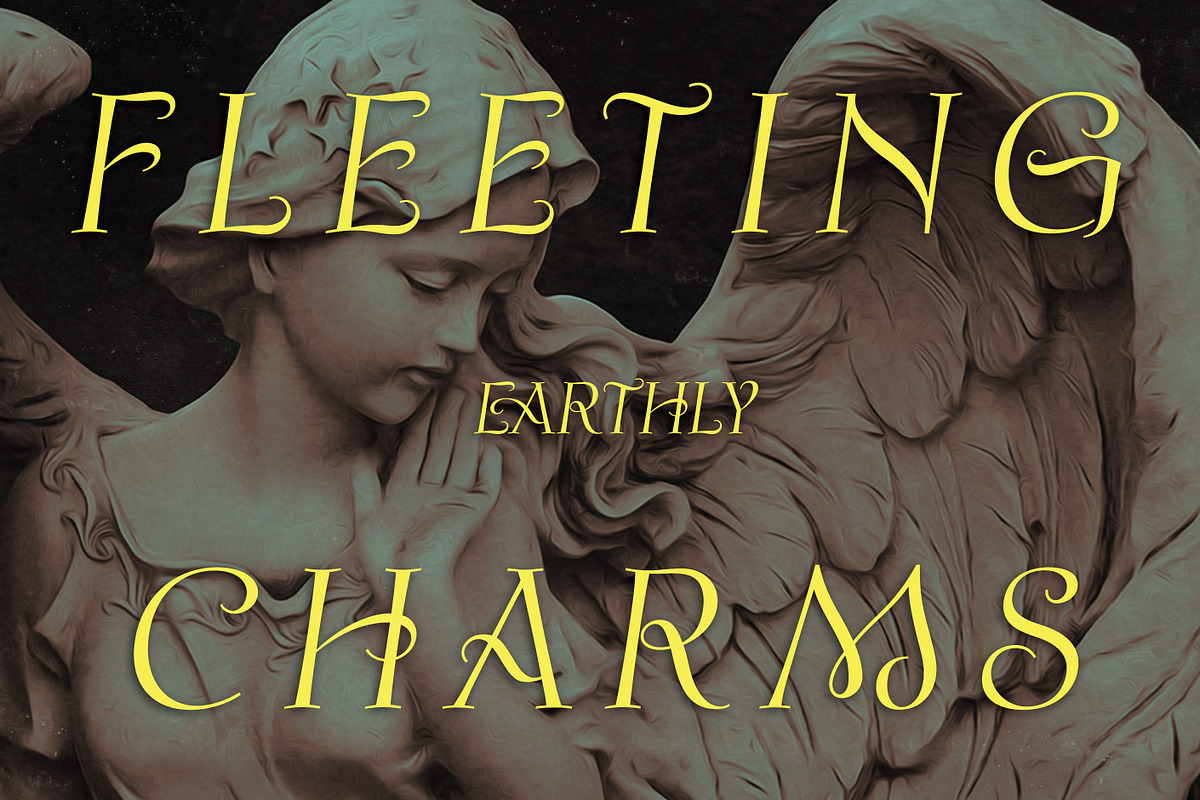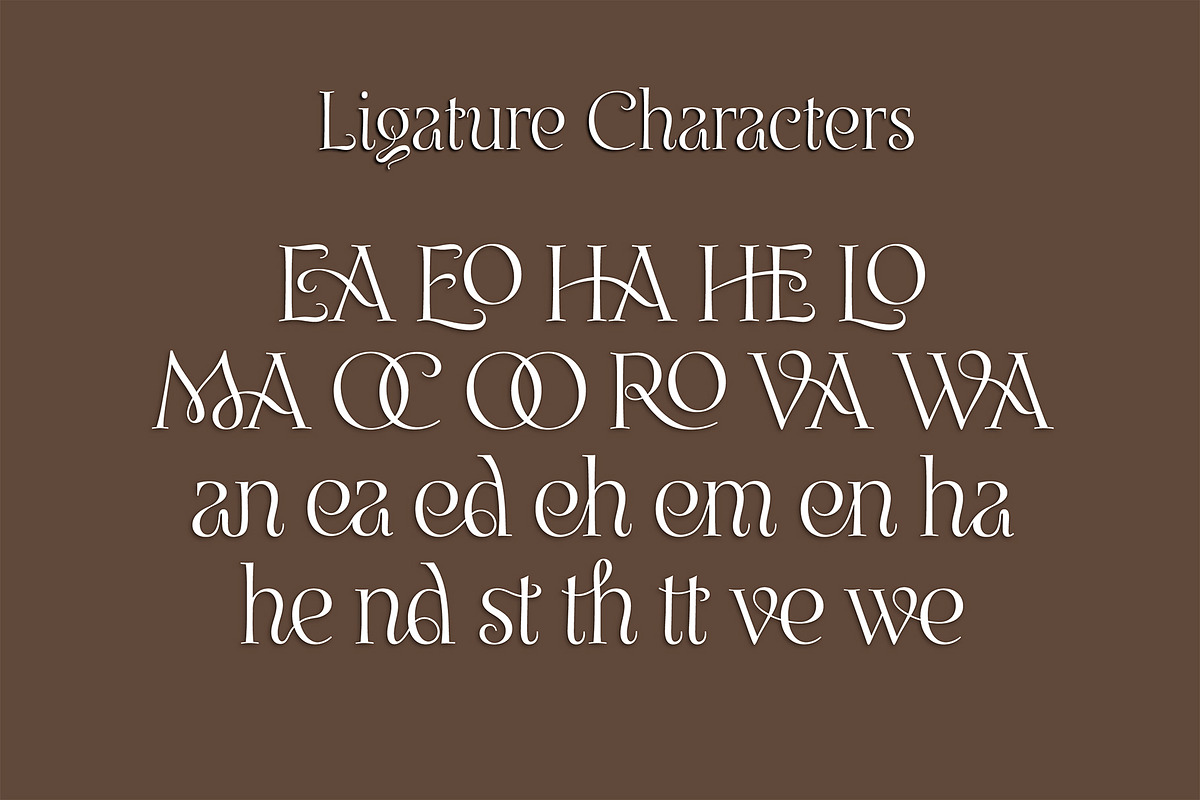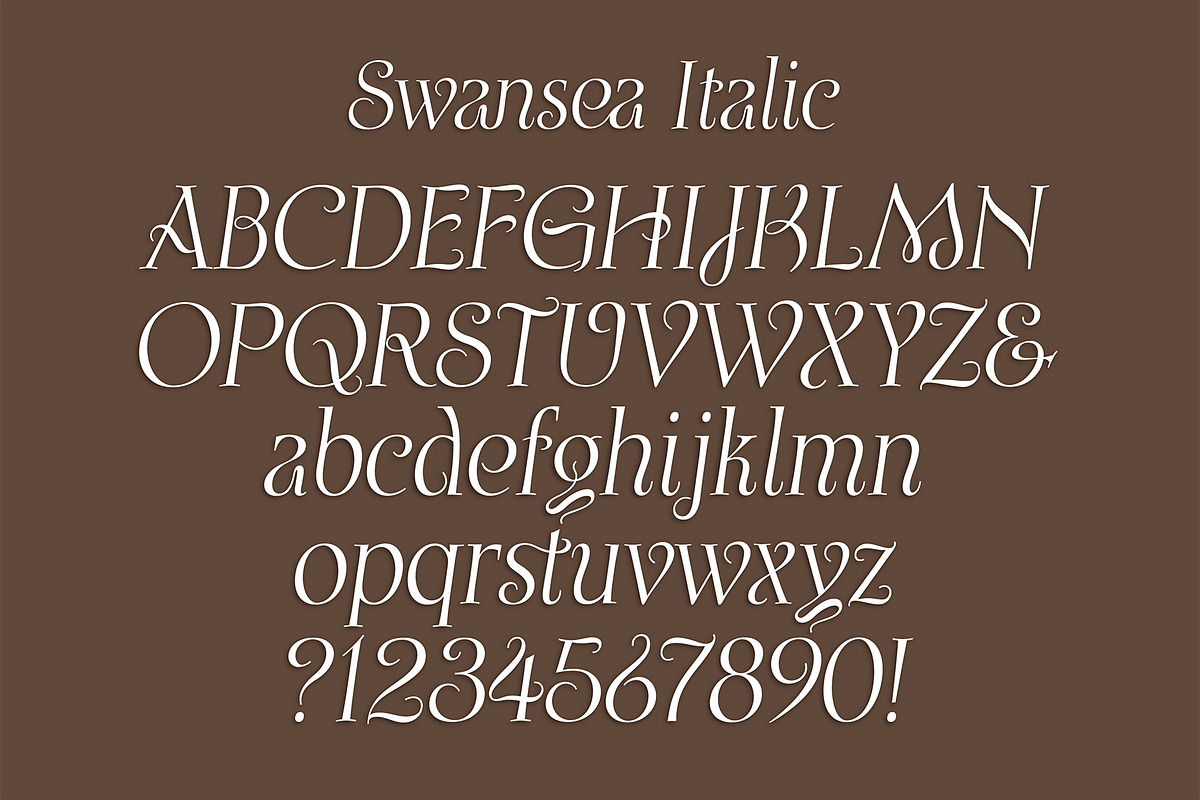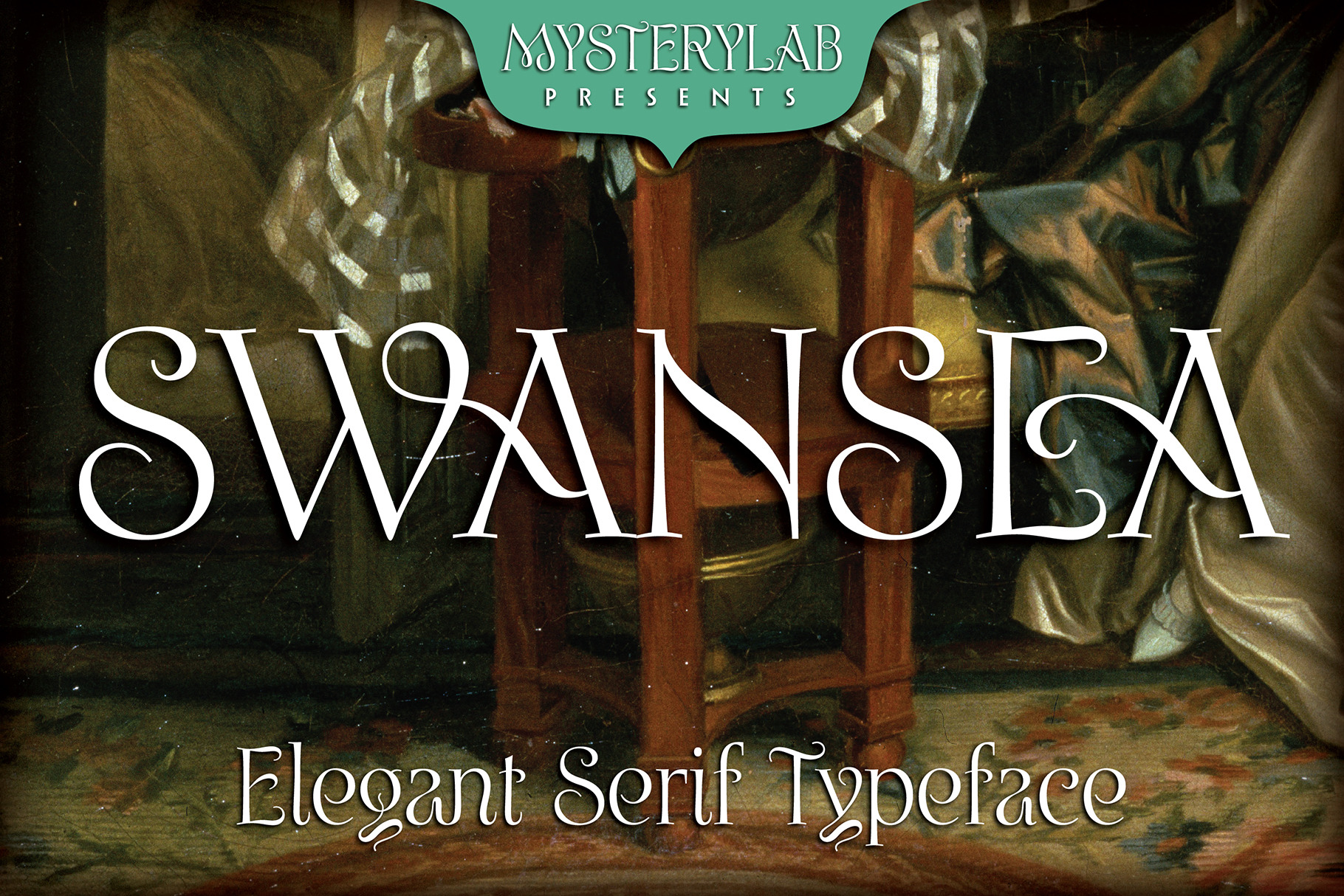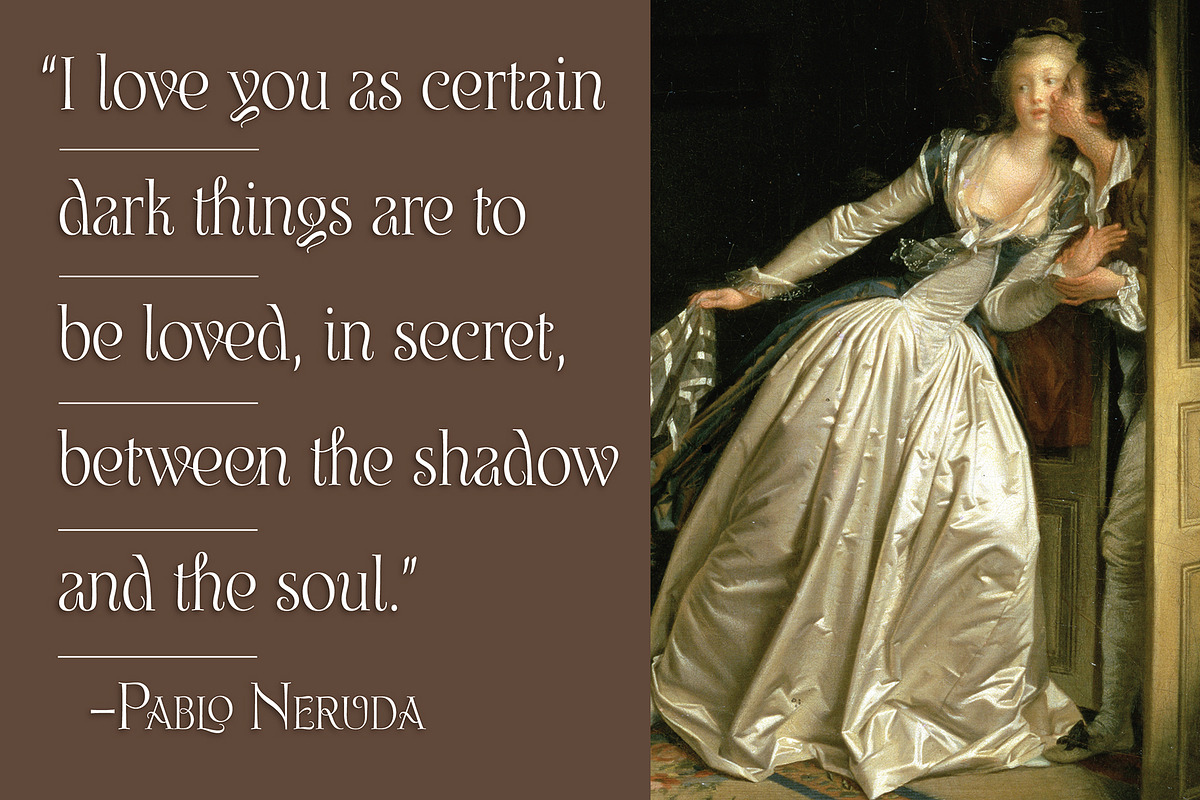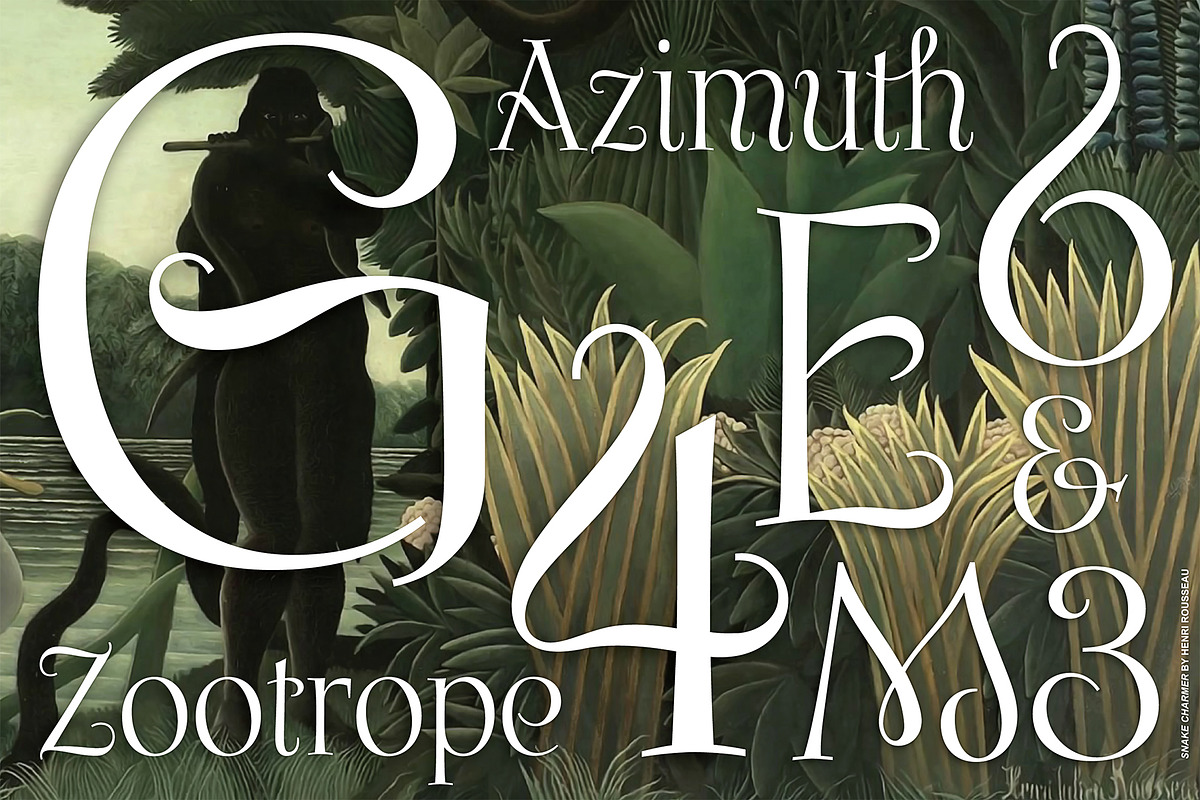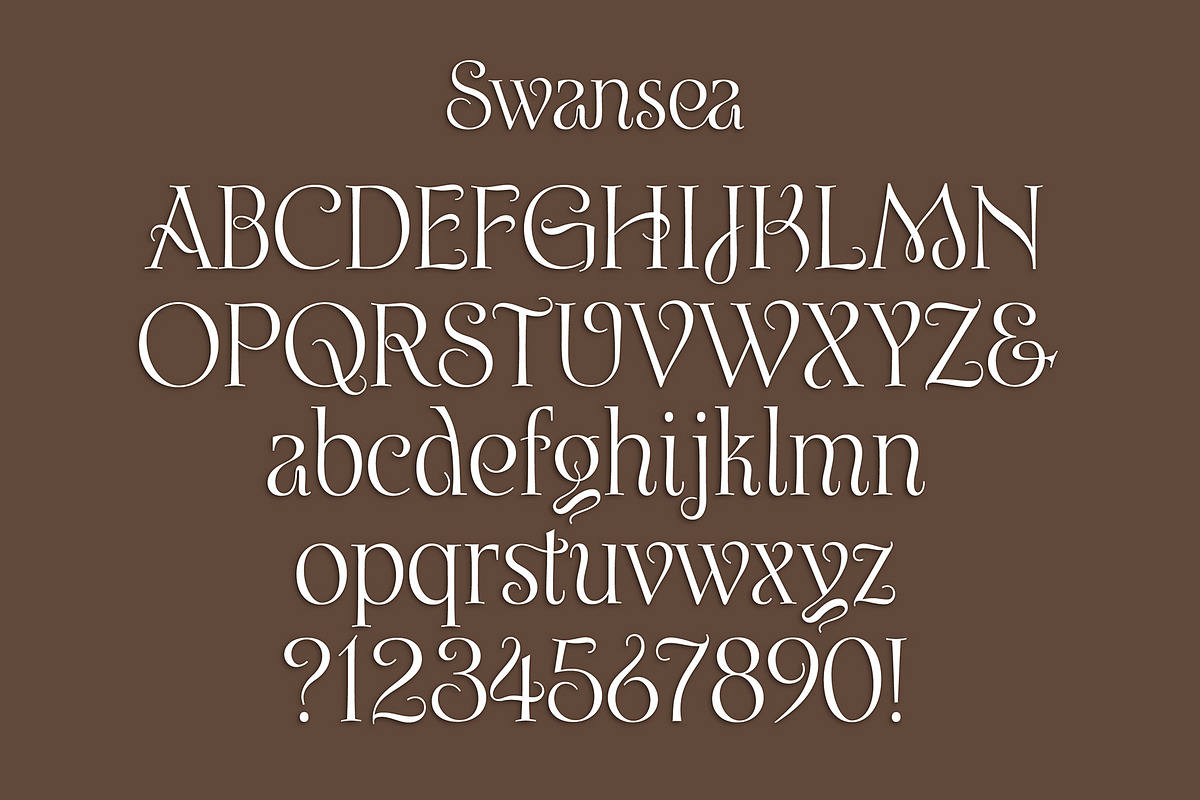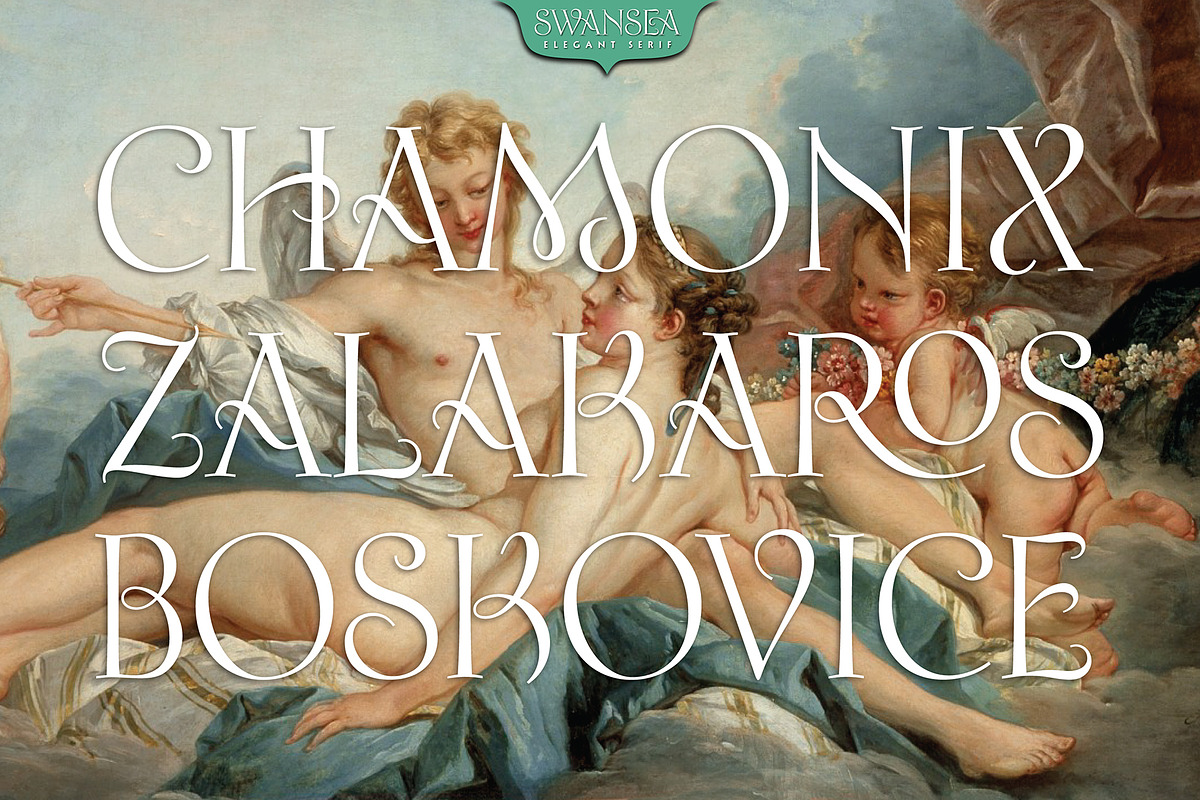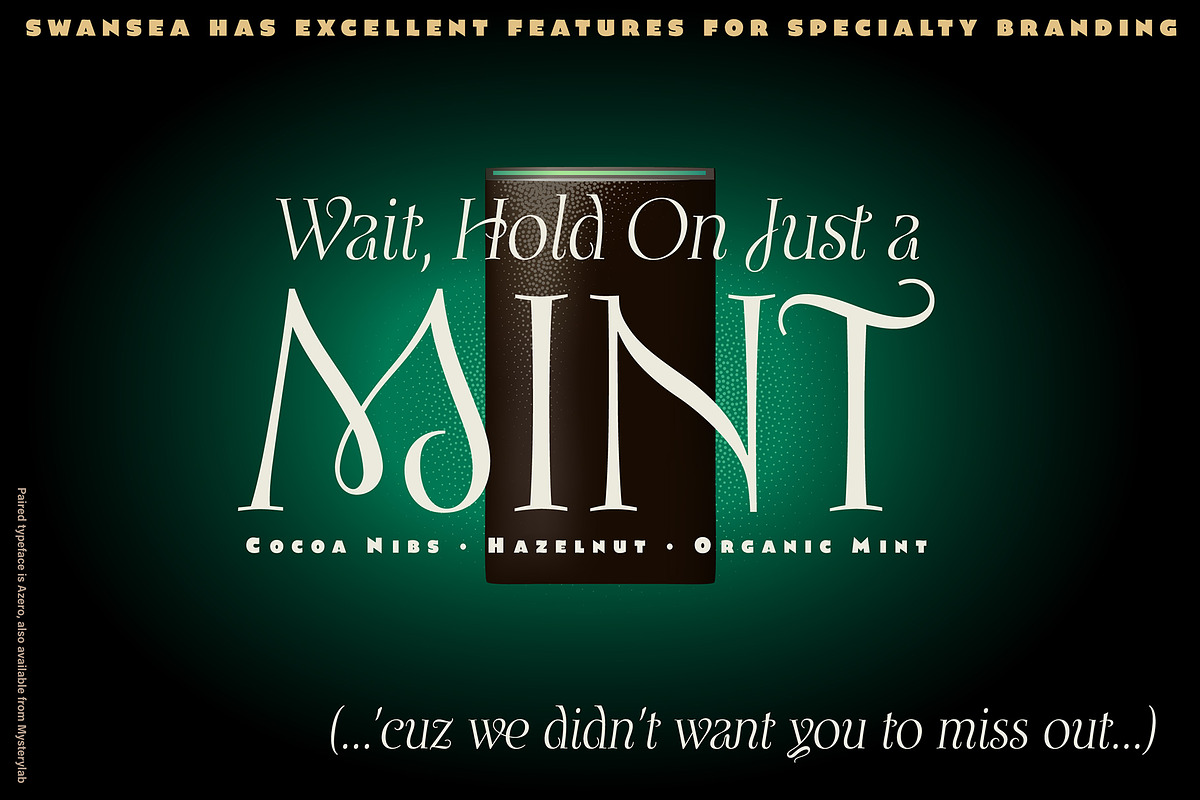
Swansea Font
Swansea font is an ornate and elegant serif typeface providing both roman and italic variants. The old world strokes and flourish embellishments are fused with a modern uniformity that makes this type versatile and useful in many contexts. A collection of two character ligatures bring out additional possibilities (It's easy to override these ligatures in the Glyphs menu of most design software packages.)
It's excellent for posh specialty branding applications, antique themes, fine art publications, fashion, and much more.